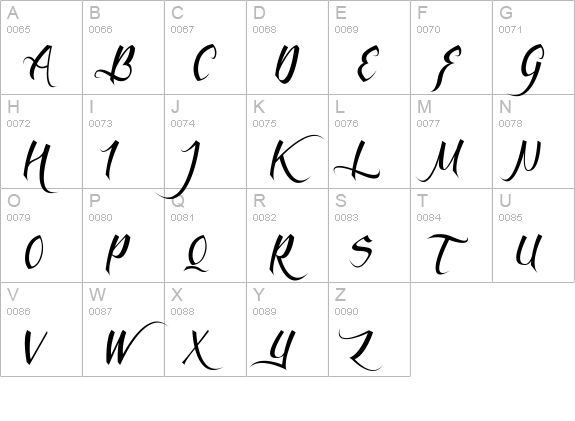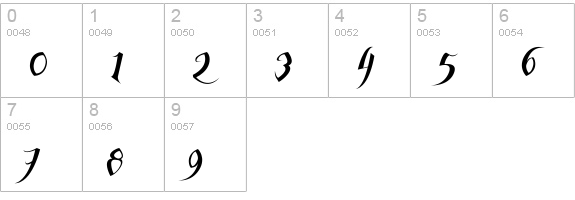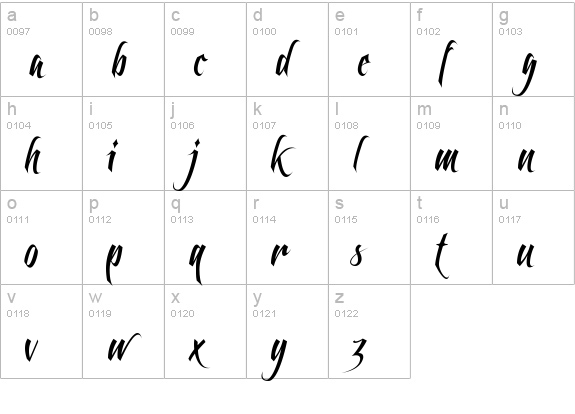
Feathergraphy Clean Font Details
Feathergraphy Clean font is a stunning and sophisticated typeface that exudes elegance and grace. With its delicate strokes and flowing curves, this font captures the essence of timeless beauty. It is the perfect choice for projects that require a touch of finesse and refinement. One of the most appealing aspects of Feathergraphy Clean font is that it is free. Yes, you read that right! This remarkable font is freely available to download at FontsMarket.com. Now, you can enhance your designs with a font that is not only visually captivating but also budget-friendly. Feathergraphy Clean font is a versatile typeface that can be used in a variety of design projects. Whether you are creating wedding invitations, branding materials, or elegant posters, this font will add a touch of sophistication and class to your work. Its clean and well-defined characters ensure legibility, making it suitable for both print and digital applications. The attention to detail in Feathergraphy Clean font is truly remarkable. Each letter has been meticulously crafted to create a harmonious and balanced design. The thin lines and intricate details give this font a refined and polished look, making it a standout choice for any project. With its timeless appeal and budget-friendly nature, Feathergraphy Clean font is a must-have for designers and creatives alike. Whether you are a professional designer or someone who simply appreciates beautiful typography, this font will undoubtedly elevate your work to new heights. So why wait? Head over to FontsMarket.com and download Feathergraphy Clean font for free today!